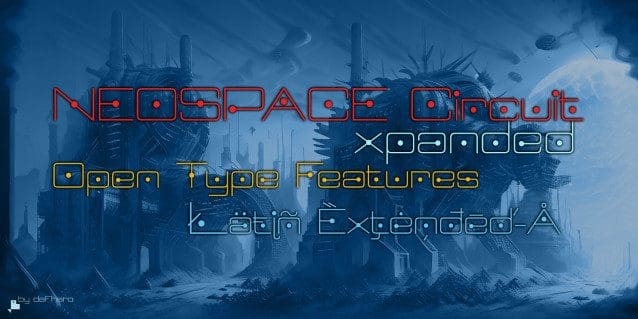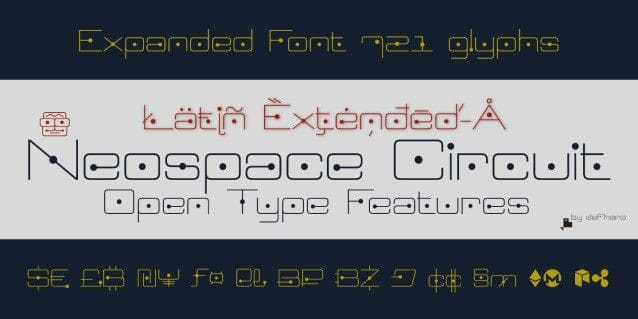
Neospace Circuit Font
Neospace Circuit Font is an avant-garde typeface designed for lovers of technology and science fiction. With its elegant extended proportion and geometric minimalism, NeospaceCircuit redefines typographic aesthetics with a perfect fusion between modern and futuristic.